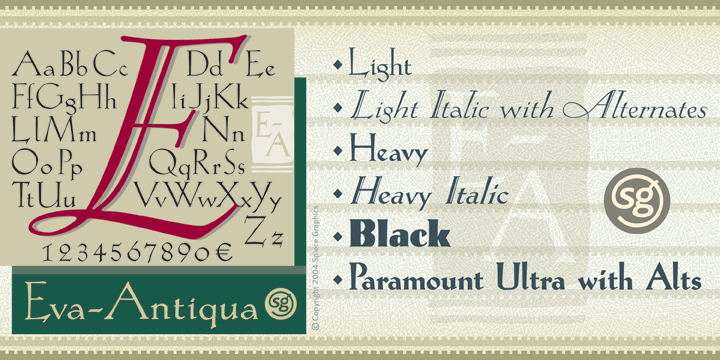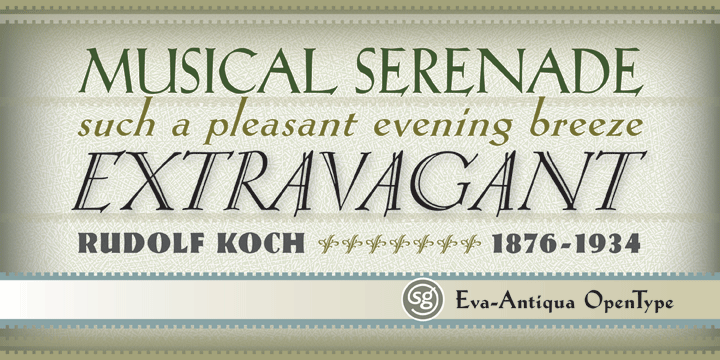
Eva Antiqua Family (6 fonts)
Based on the 1922 Klingspor model by German designer Rudolf Koch, this hand-drawn quill roman has an informal and curiously delicate appearance. The typeface was known in Germany as Koch Antiqua and in the rest of Europe as Locarno. Eve, as it was called in the United States, continues to enjoy great popularity in advertising and book publishing circles.
This deluxe version includes display light, display heavy, and display black as well as the hard-to-find display light and heavy (Koch Kursiv) italics. Eva-Paramount, which is based on Morris Benton’s 1928 ATF Paramount, has also been included. It contains a set of alternates characters that are in keeping with the light and heavy display letter styles.